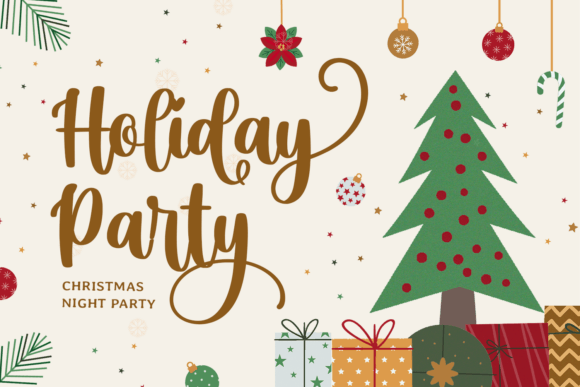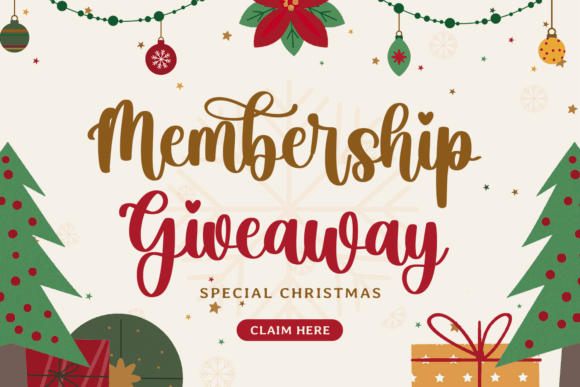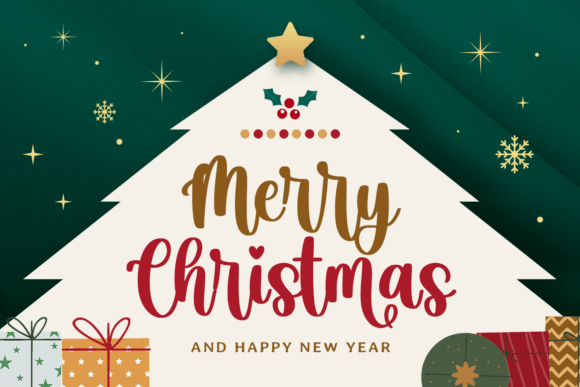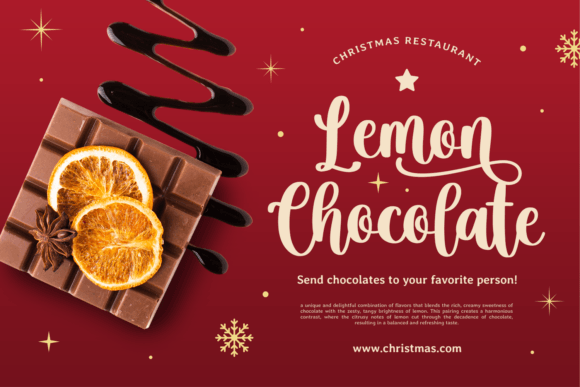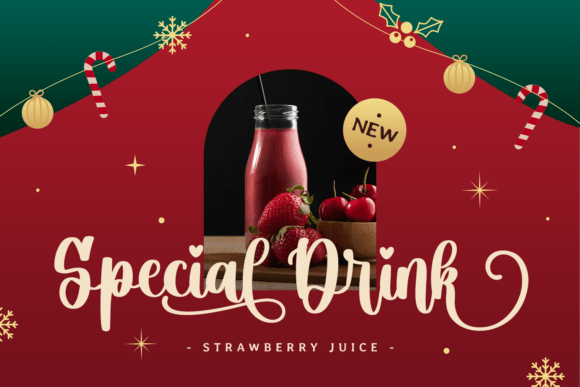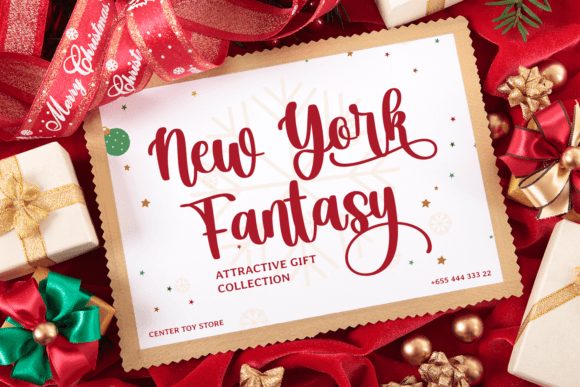
Introduction to Christmas Ambience Font
Christmas Ambience is a stunning script font that embodies the warmth and charm of the holiday season.
With its smooth monoline strokes and whimsical handwritten style, this font is perfect for Christmas, New Year, winter, Easter, Thanksgiving, and festive craft projects Its elegant yet playful design makes it a versatile choice for both decorative and functional creations.
Key Features of Christmas Ambience Font
Why Choose Christmas Ambience Font?
Christmas Ambience Font offers exceptional quality and versatility, making it a valuable addition to your design toolkit. Whether you’re creating for personal projects or commercial use, Christmas Ambience Font delivers professional results.